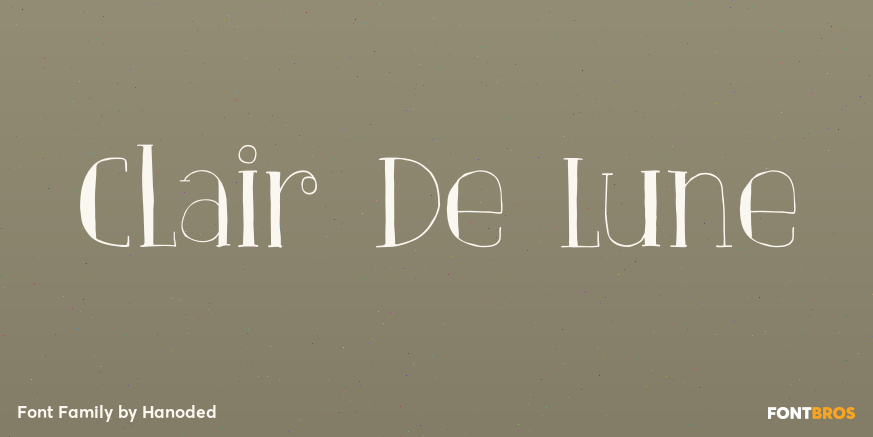
Clair De Lune
About Clair De Lune
Clair De Lune is part of the famous Suite Bergamasque, written by Claude Debussy in 1890, and published in 1905. It means Moonlight in French, a kind of romantic name. The name is exactly what I had in mind for this